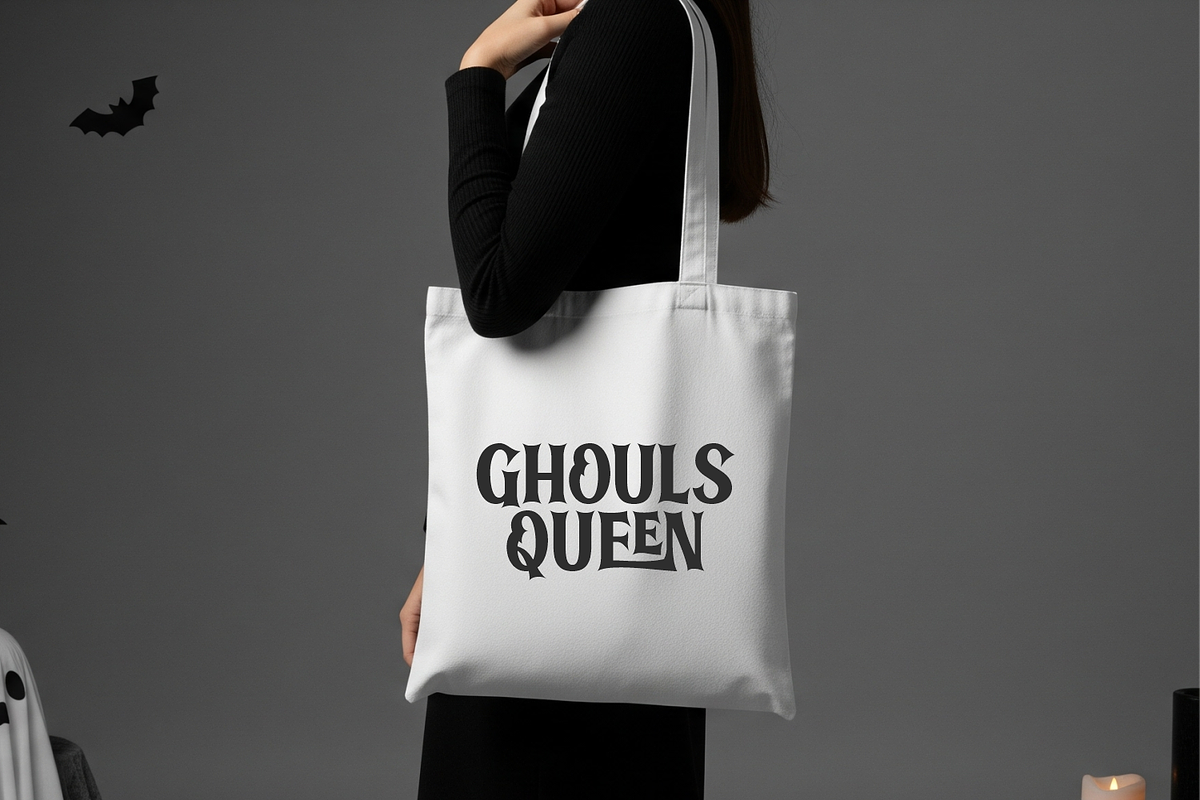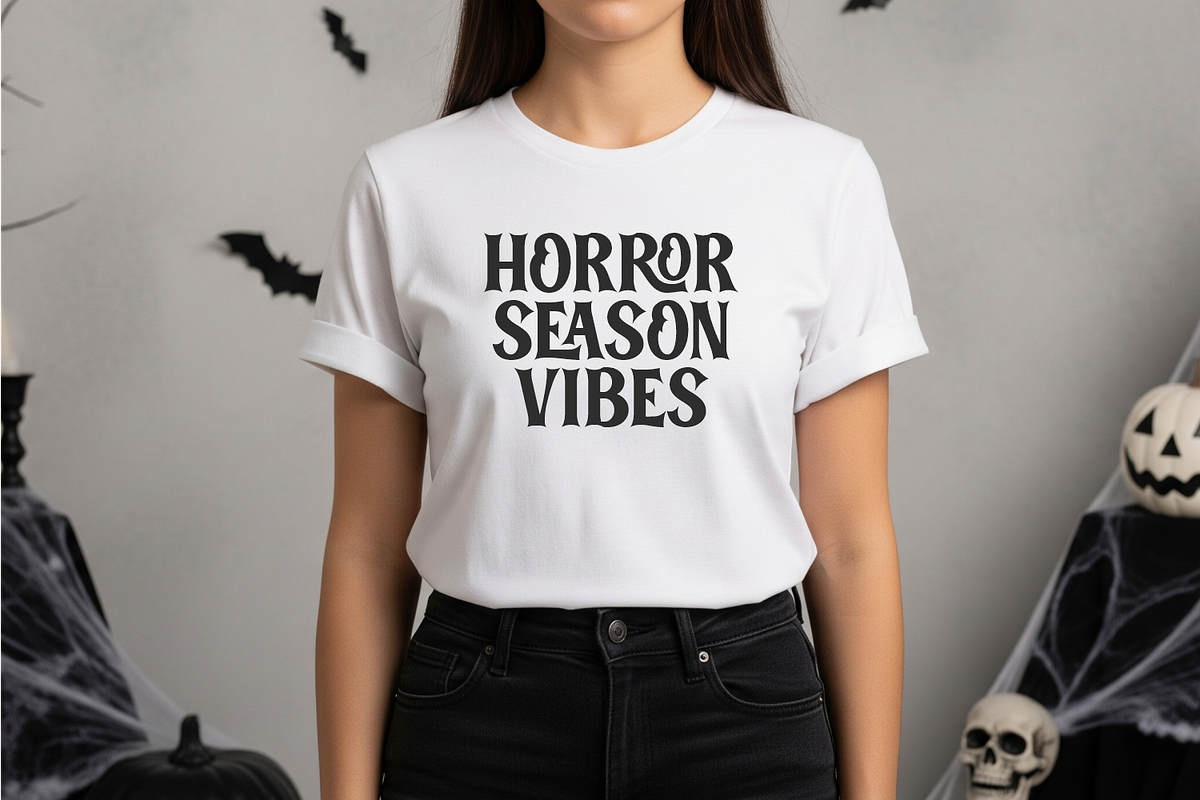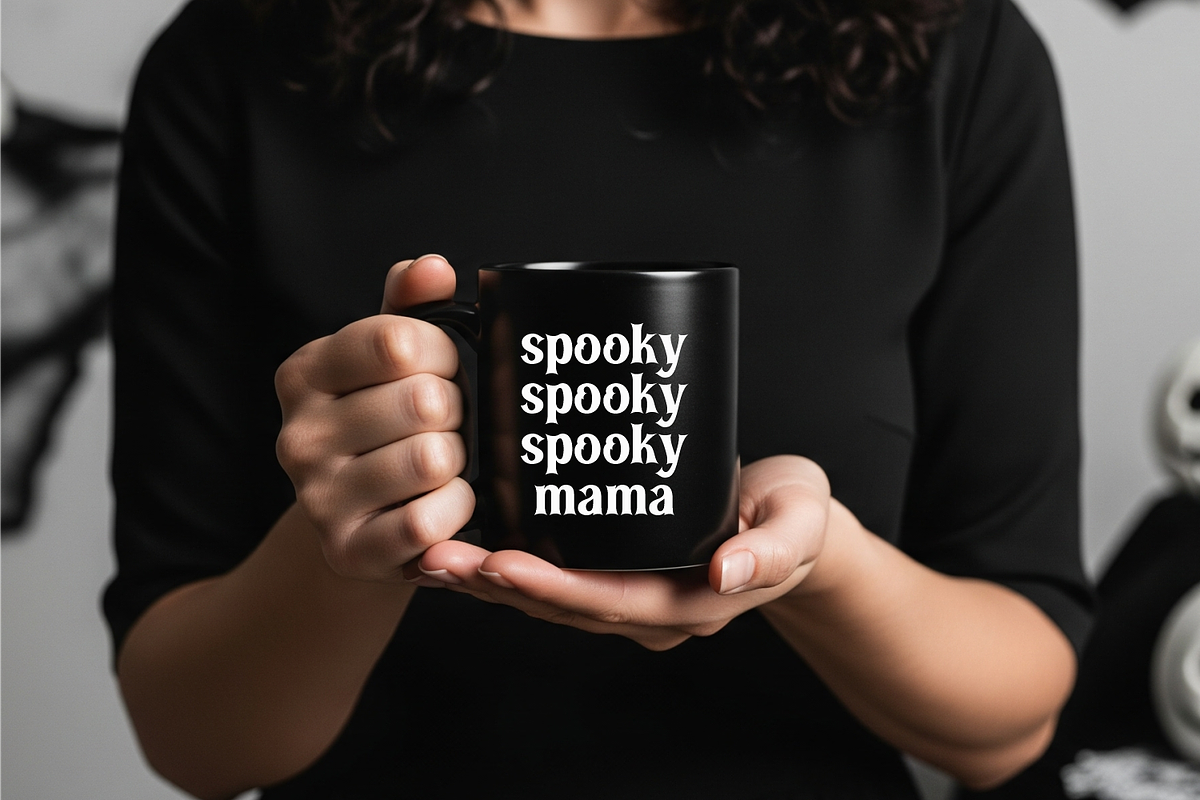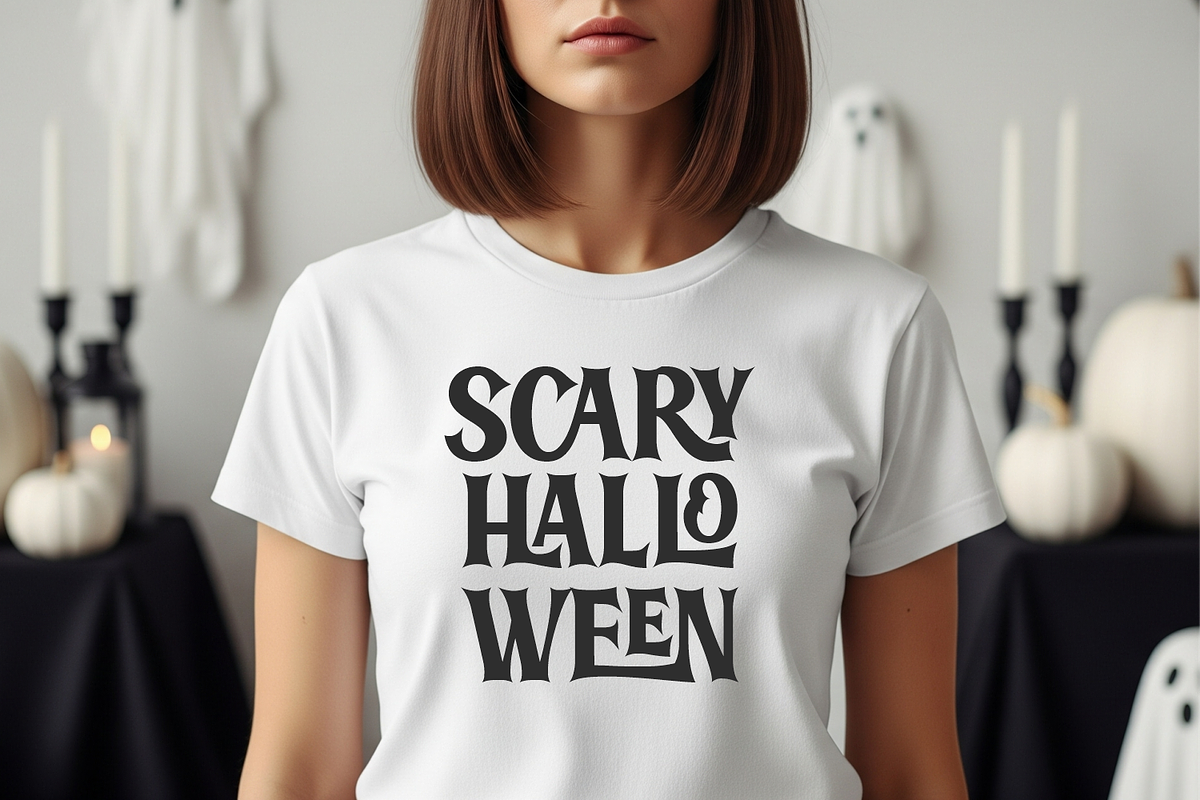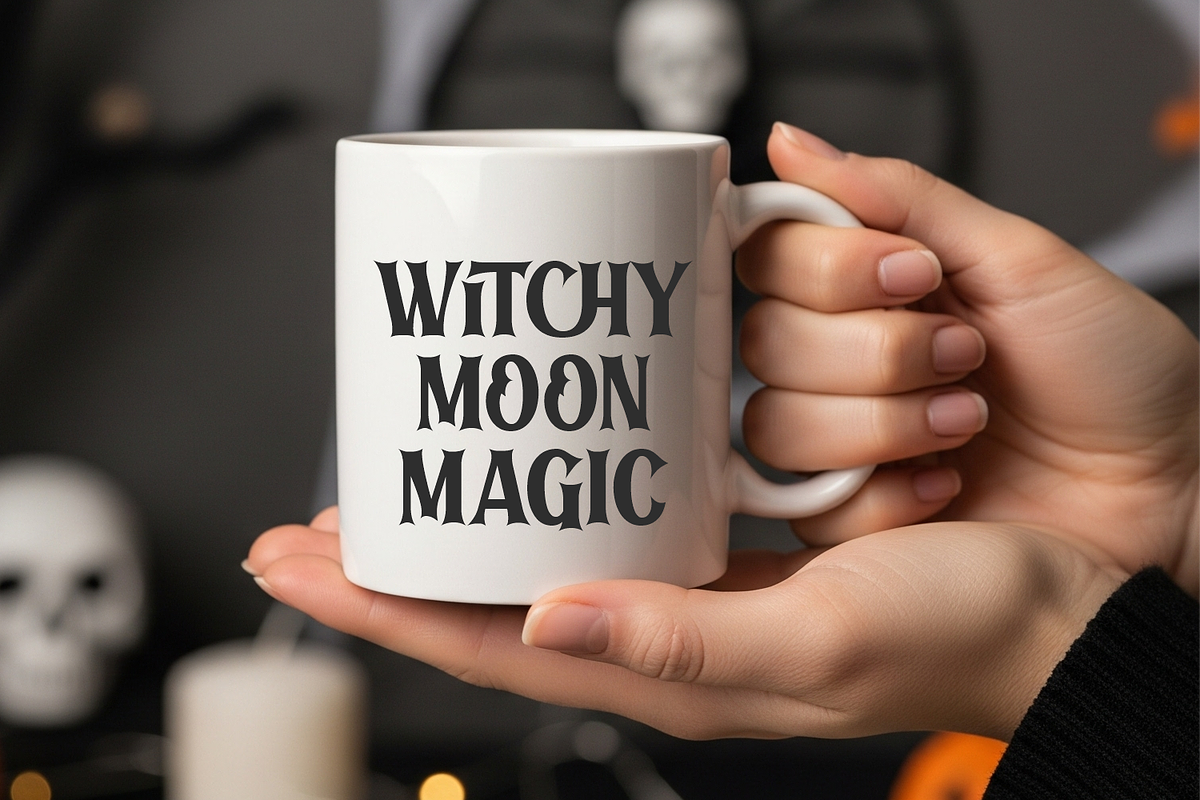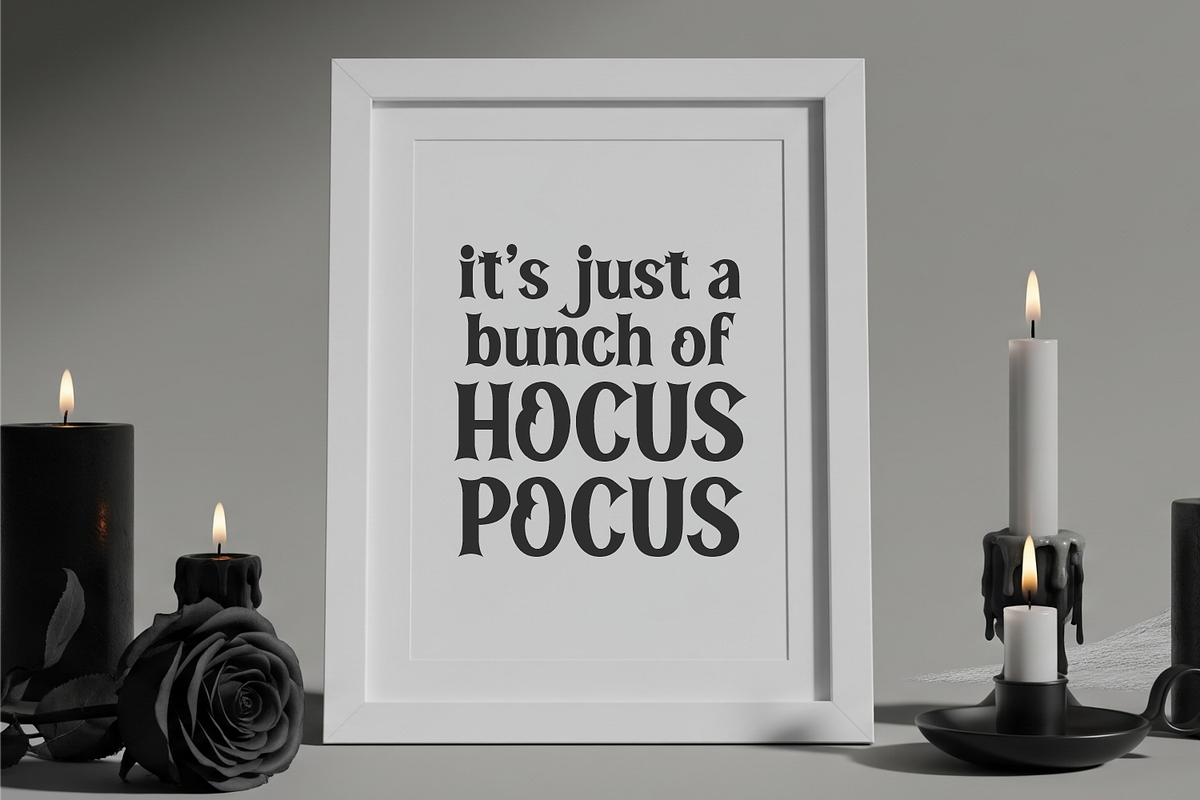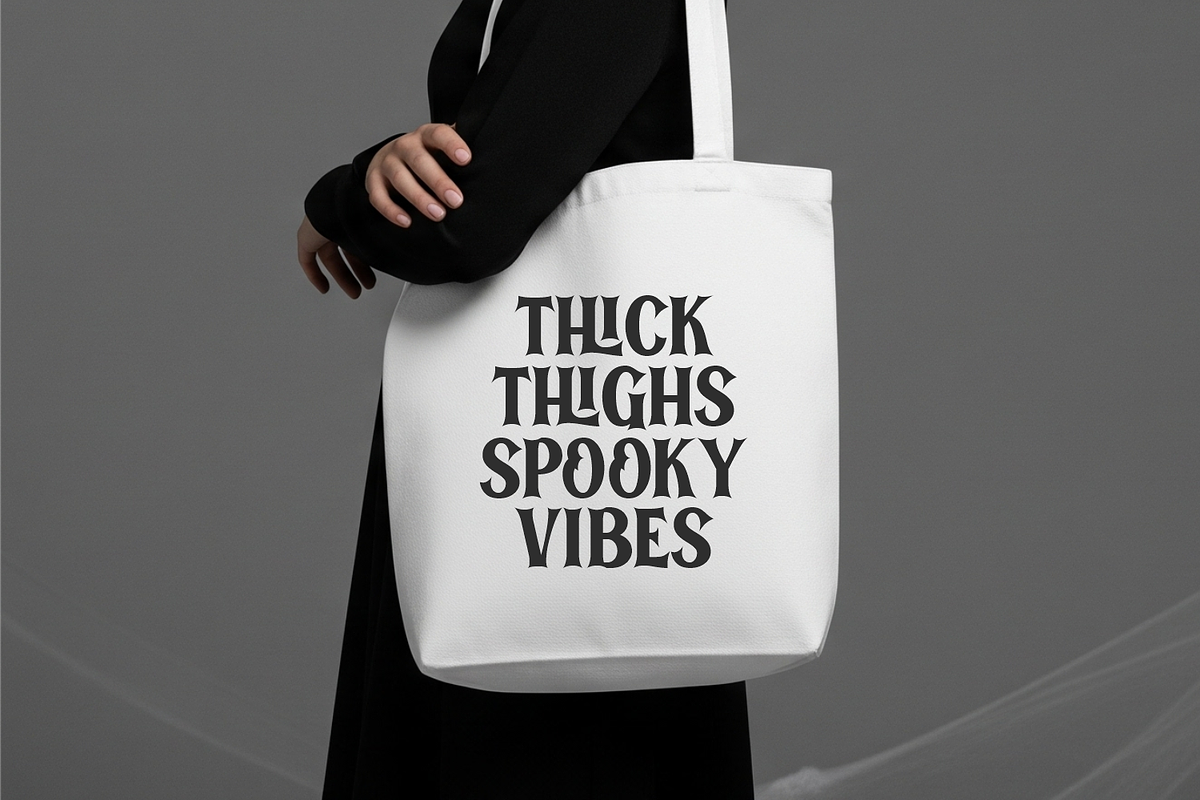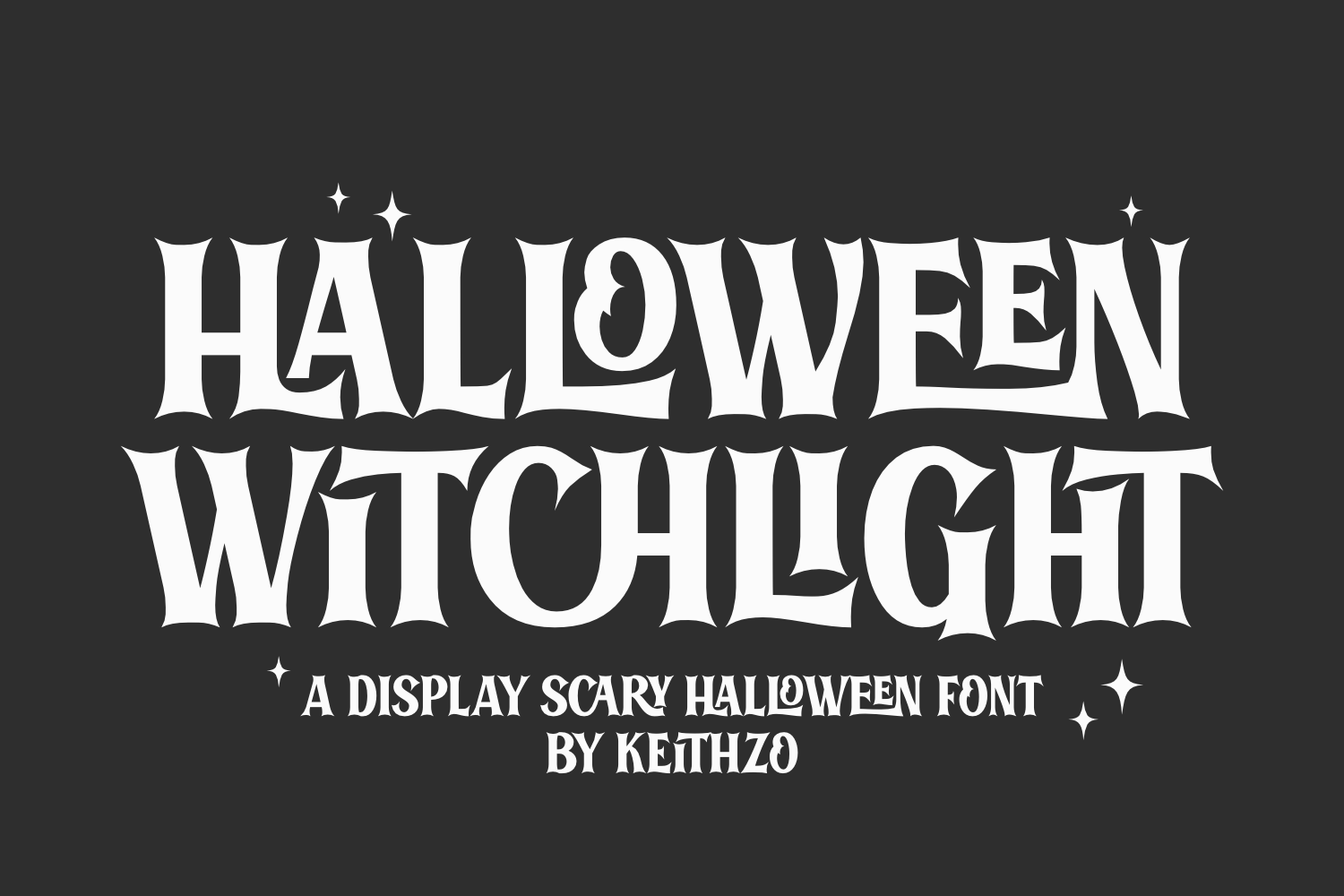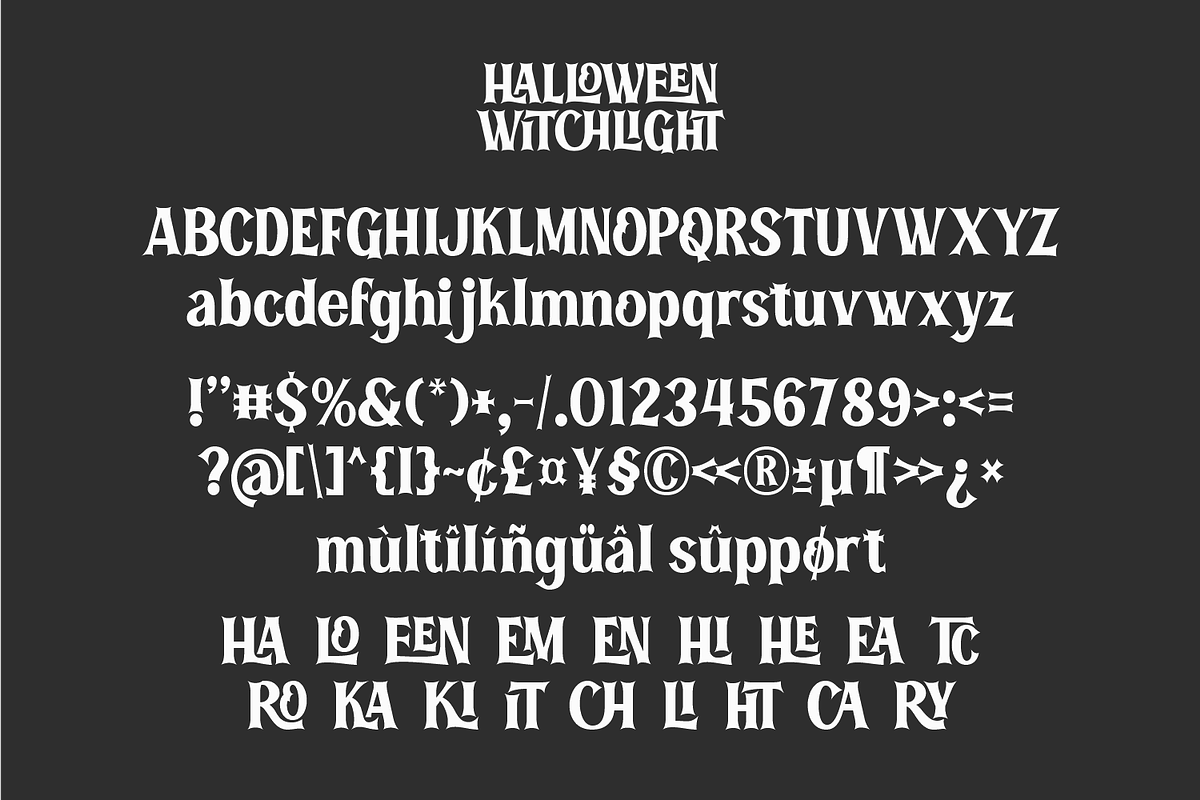
Halloween Witchlight - Spooky Font
Experience the alluring mystery of October brought to life by the Halloween Witchlight font. This distinctive typeface carries within it an essence of the otherworldly, overflowing with a hauntingly sophisticated blend of chills and thrills. Its exclusive ligature function for uppercase letters breathes an ethereal charm, setting it apart as the ultimate style for Halloween-centered endeavors. Let the Halloween Witchlight add an element of stylish, subtly chilling allure to a wide range of objects. Unleash its enchanting spell on clothing items like t-shirts, and accentuate home accessories like mugs and pillows. Transport everyday items such as posters, quote boards, and even your regular doormats into a fantastical dimension. The haunting but elegant whisper of Halloween Witchlight seamlessly blends into invitation cards, wall decor, and even keychains. Infuse every aspect of the celebratory season with an authentic touch of ghostly grace by using the Halloween Witchlight font.